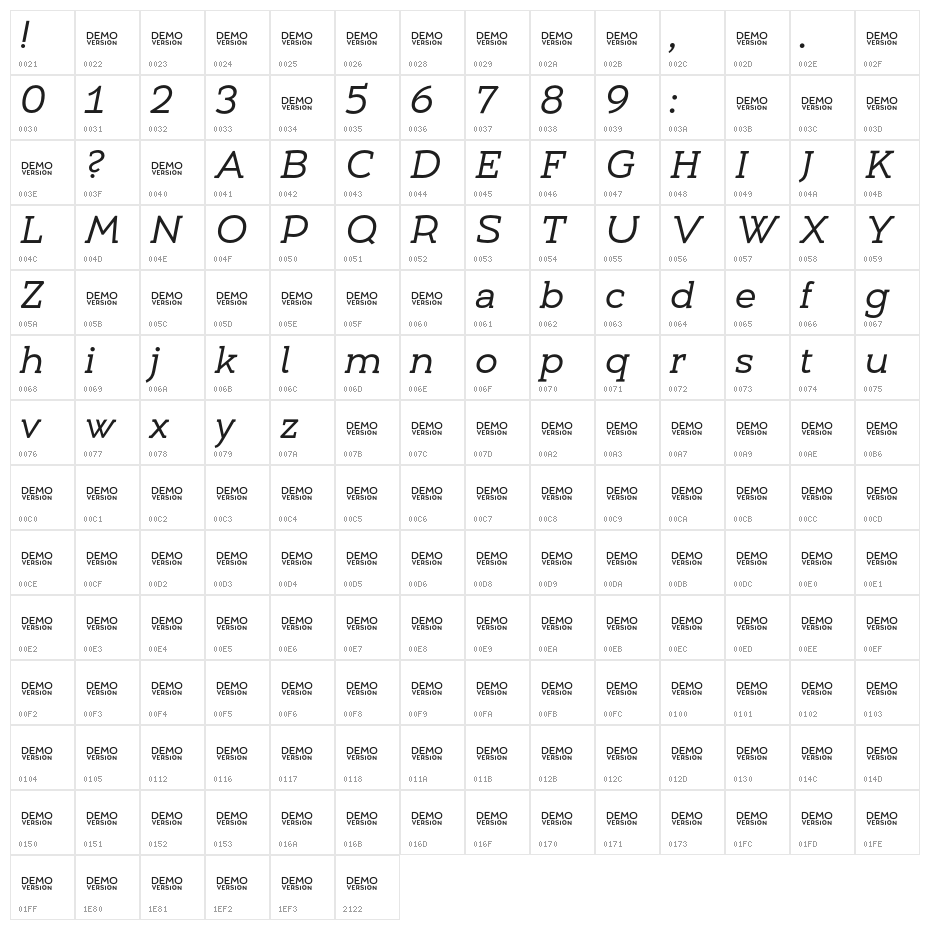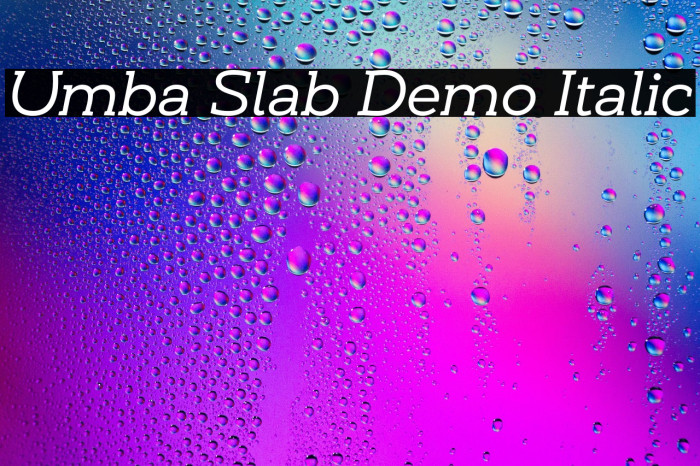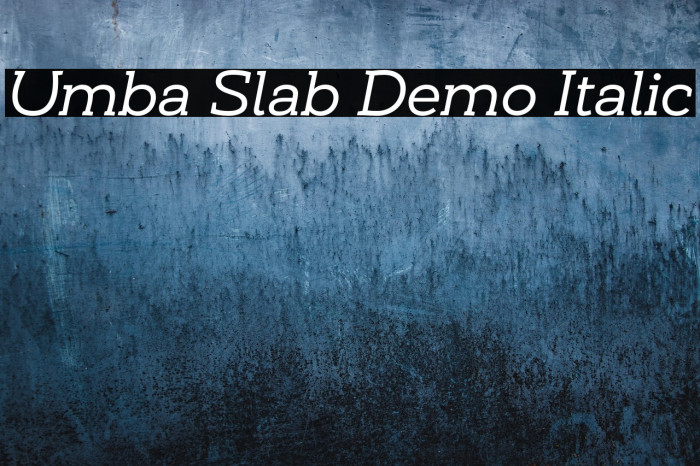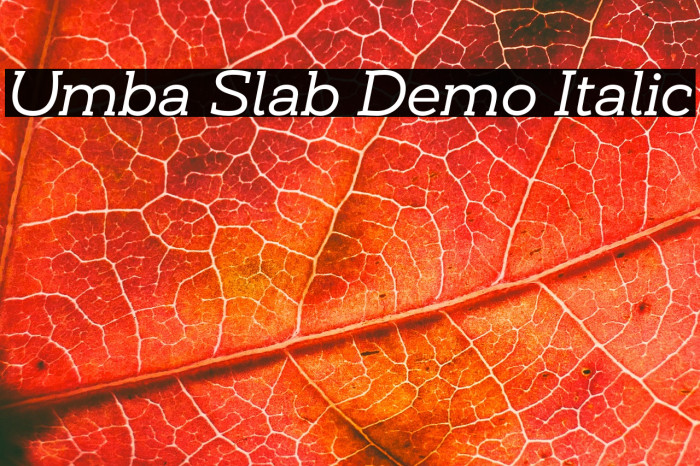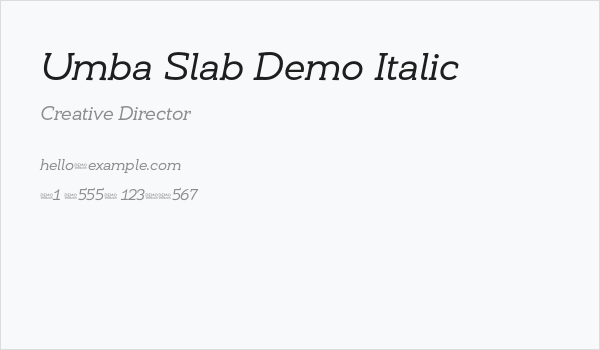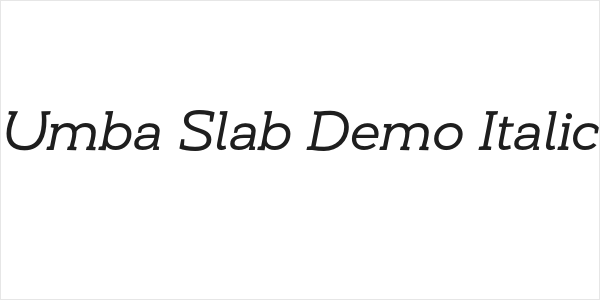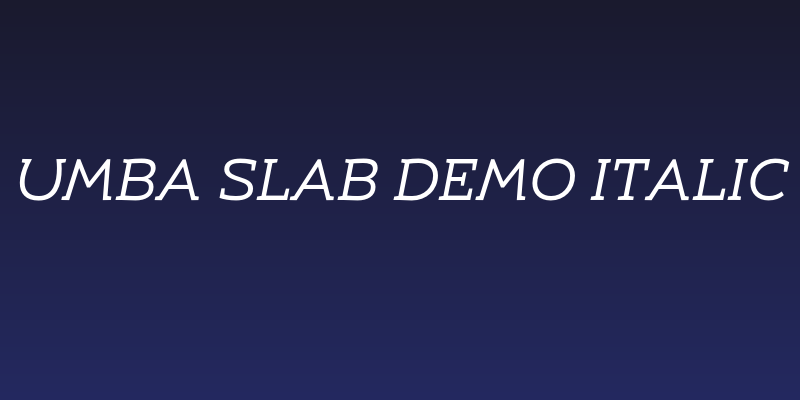
Umba Slab Demo Italic Font
Umba Slab Demo Italic Description
This font features a modern and elegant slab serif style with a distinct italic slant, providing a dynamic and sophisticated look. The characters are well-balanced, with a moderate contrast between thick and thin strokes, giving it a refined appearance. The uppercase letters are bold and commanding, while the lowercase letters maintain a smooth and flowing form. The numerals are clear and legible, making them suitable for various applications. The special characters are designed to complement the overall style, ensuring consistency throughout the typeface.